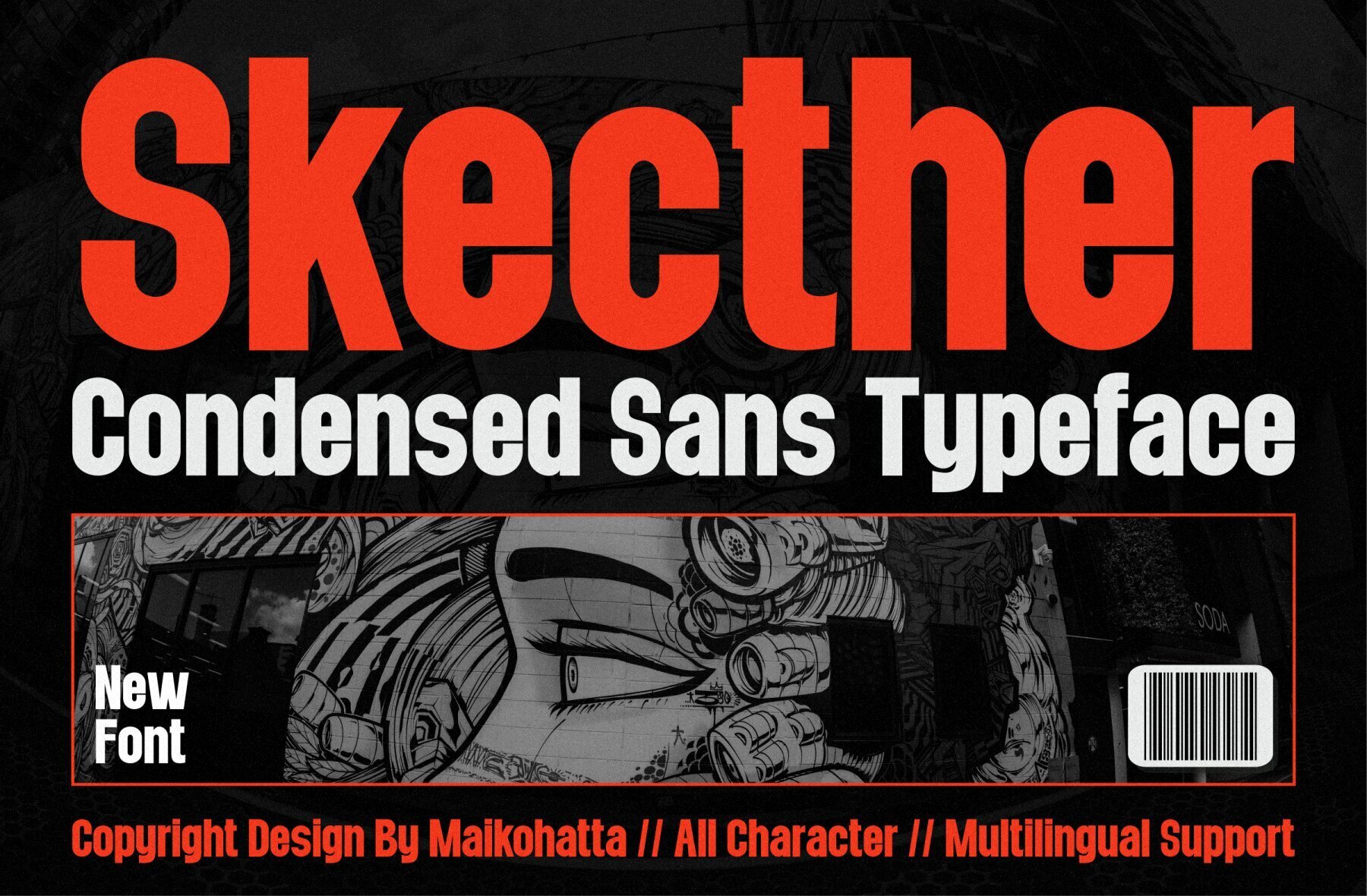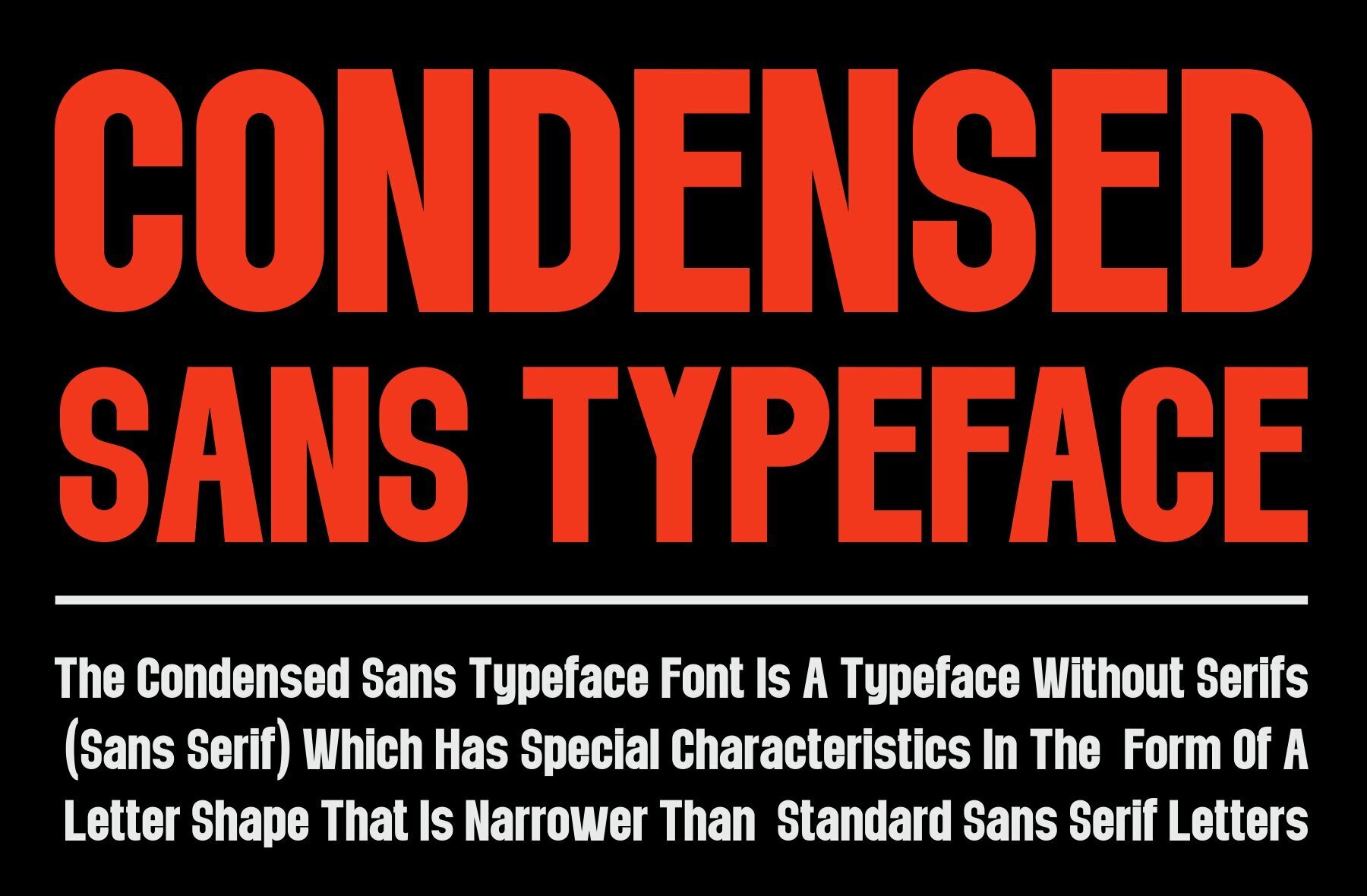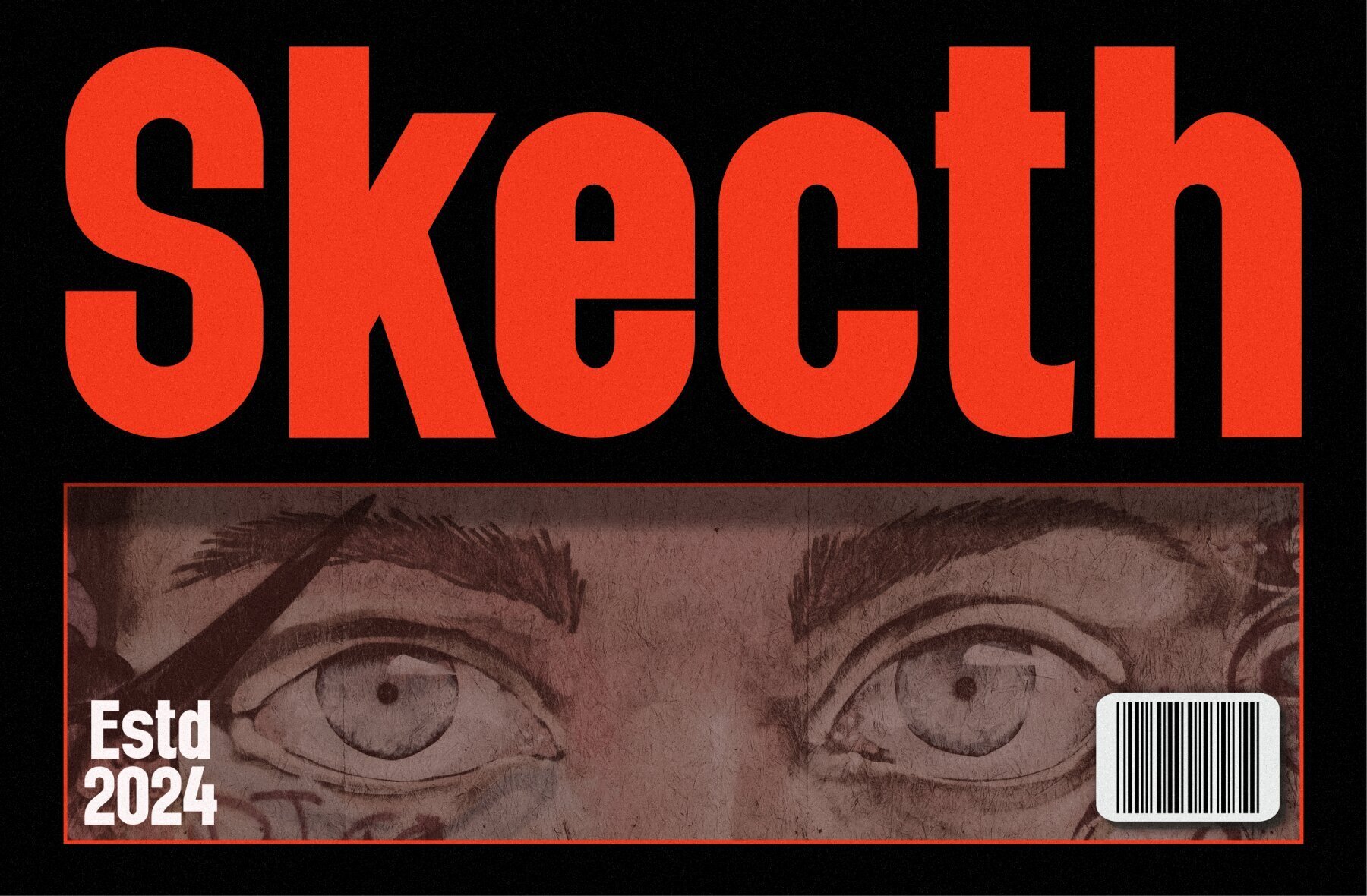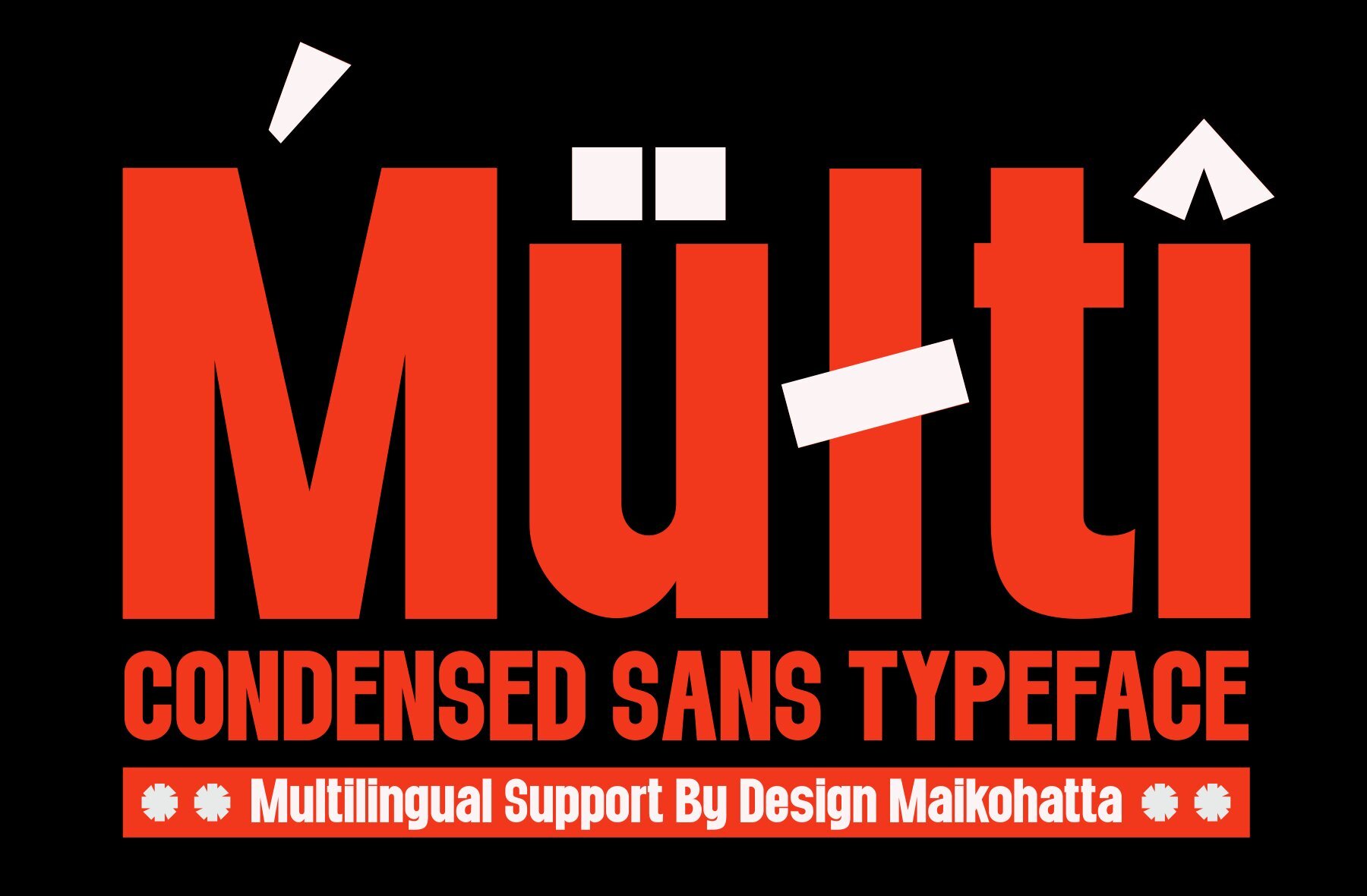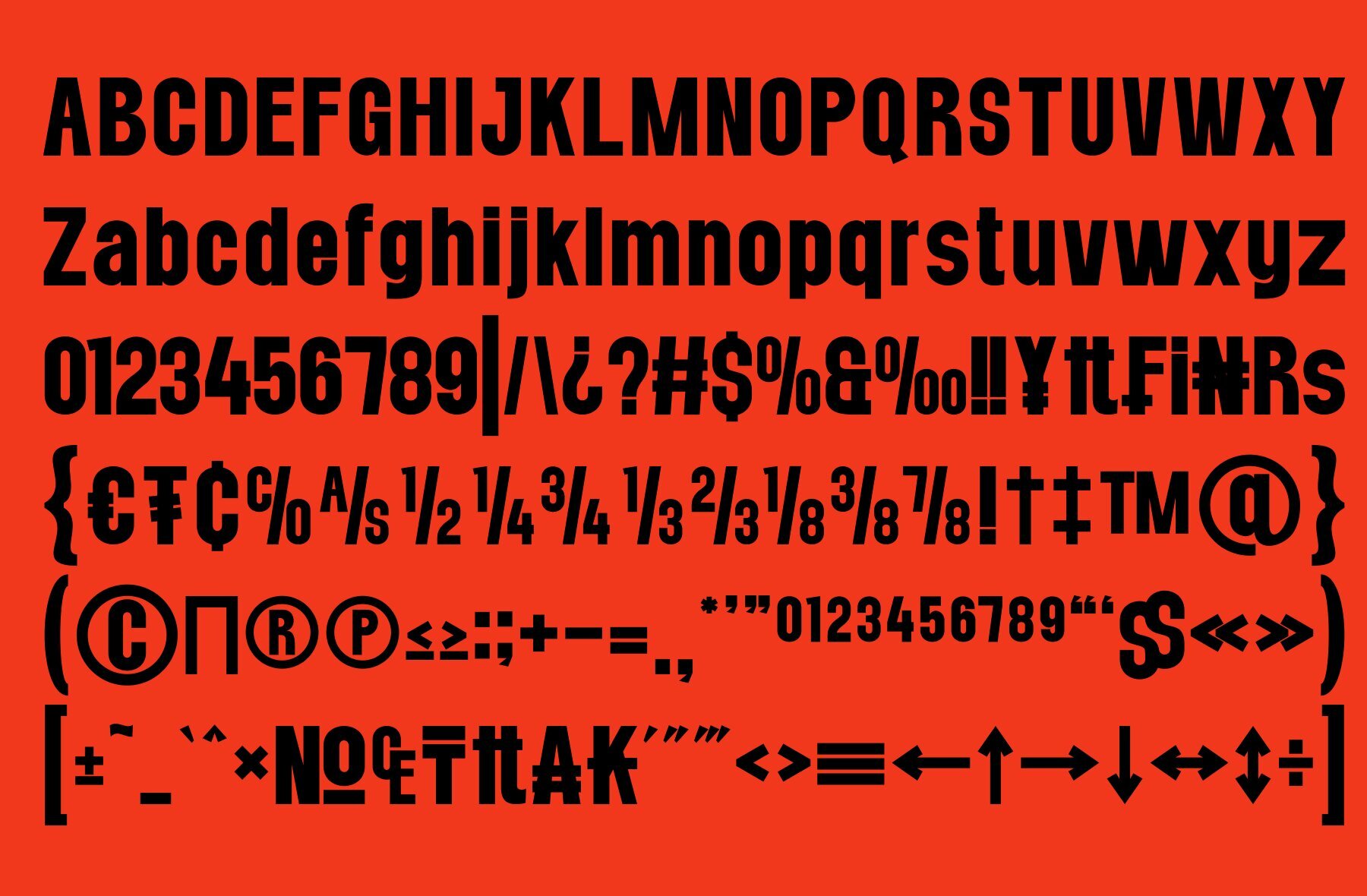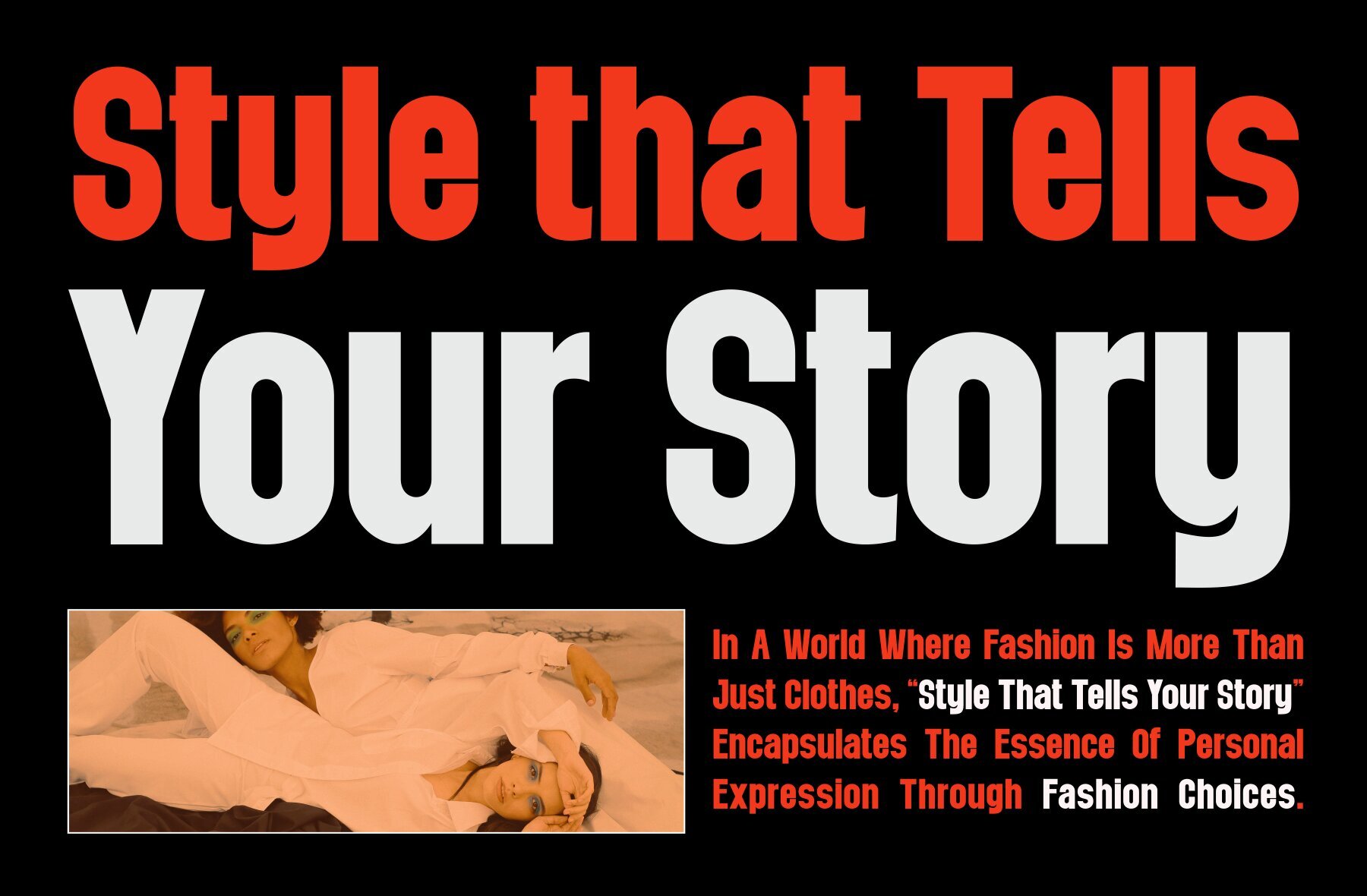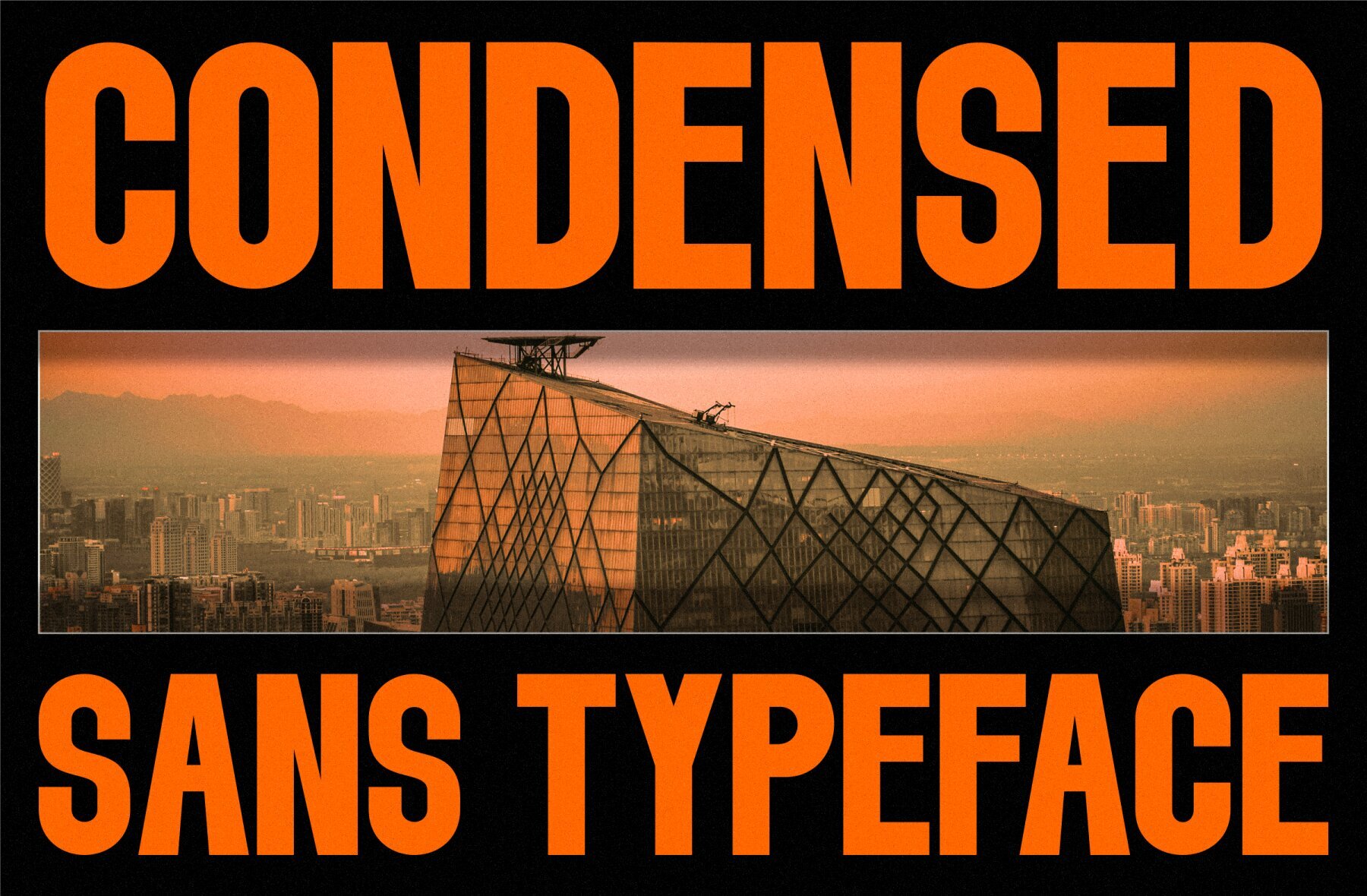
Skecther Font
Skecther Regular
Skecther is a meticulously crafted condensed sans-serif typeface, designed to feature narrower and slimmer letterforms. This unique design makes it ideal for a variety of graphic design and print applications, allowing for greater content within limited space while maintaining readability and style.
Skecther supports both uppercase and lowercase characters and offers multilingual capabilities, making it versatile for global use. Its clean lines and modern aesthetic give any project a sophisticated edge, whether it's for branding, editorial design, or digital media. Skecther ensures your text stands out with clarity and elegance.